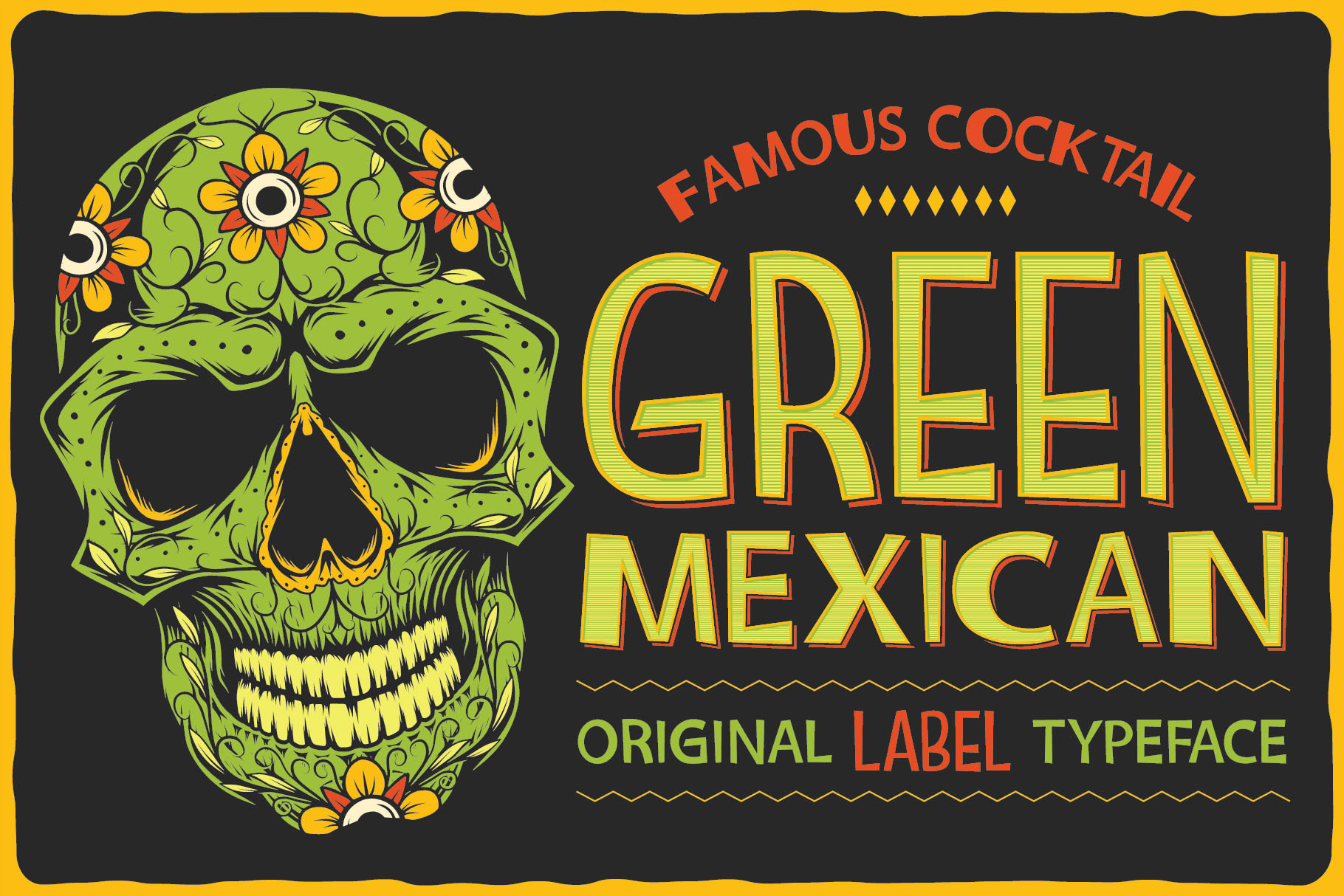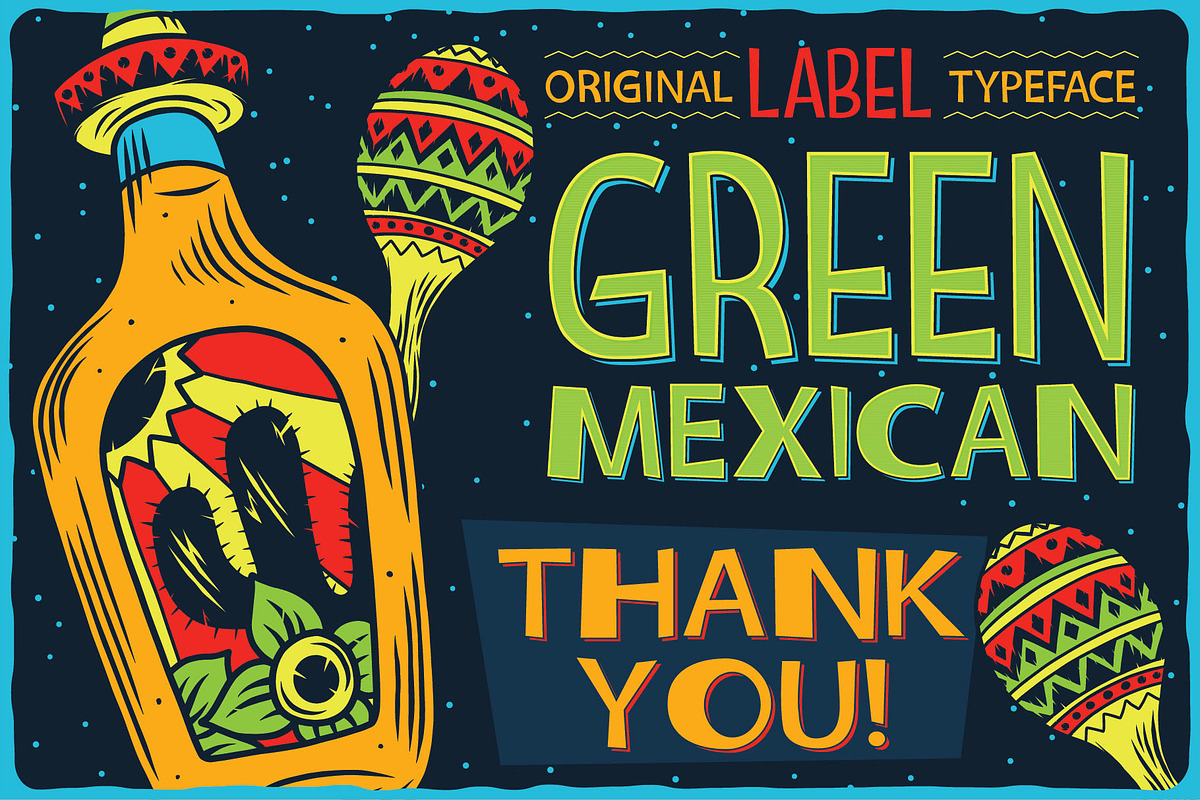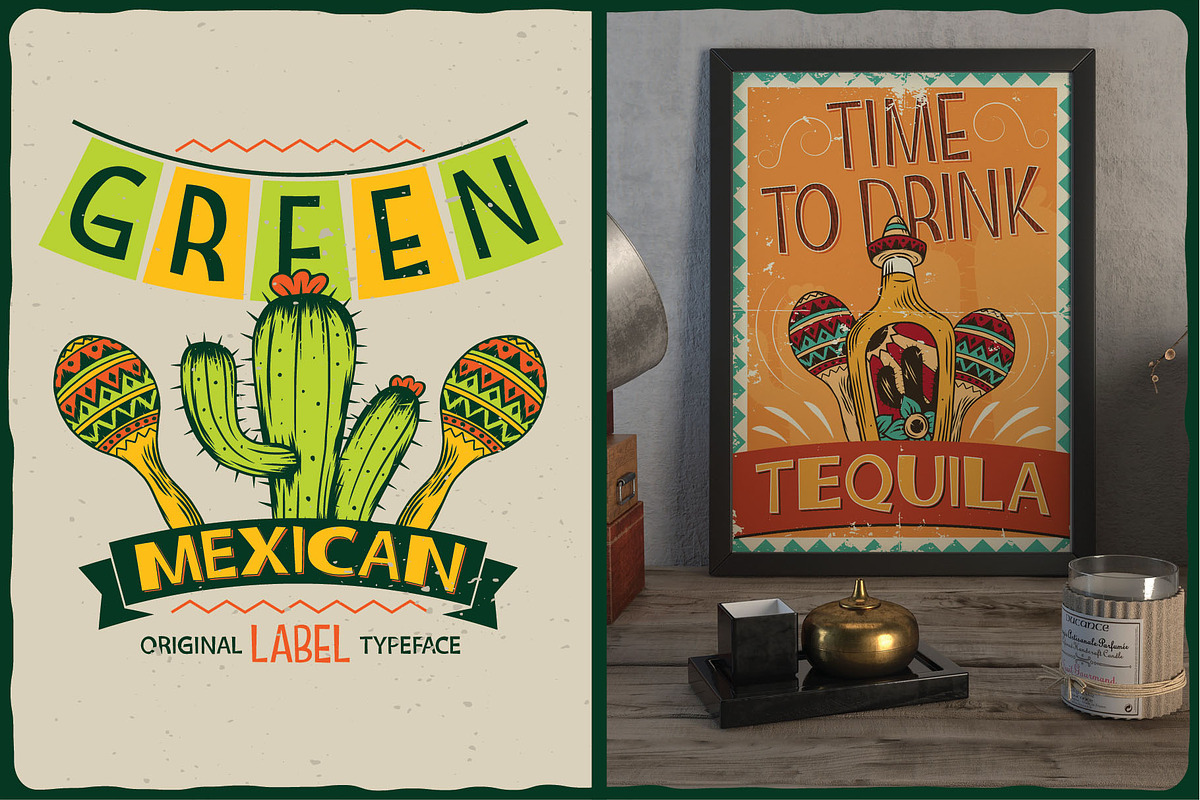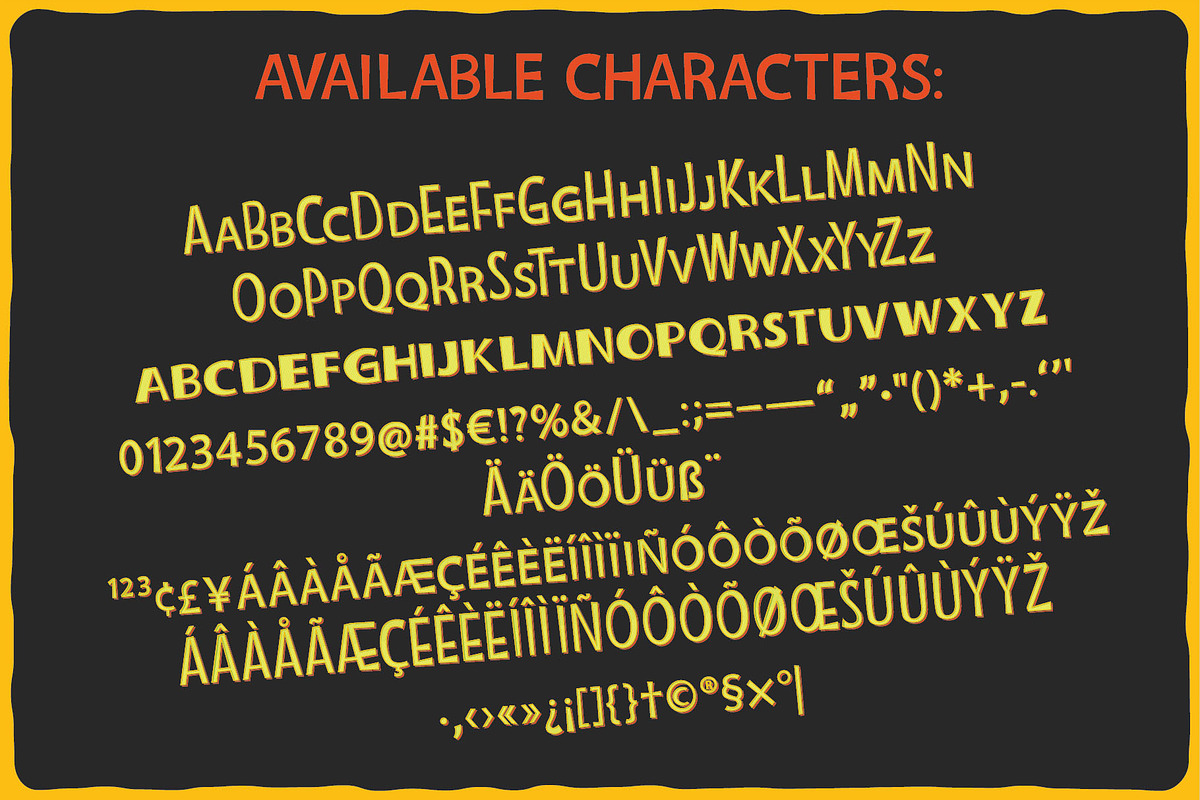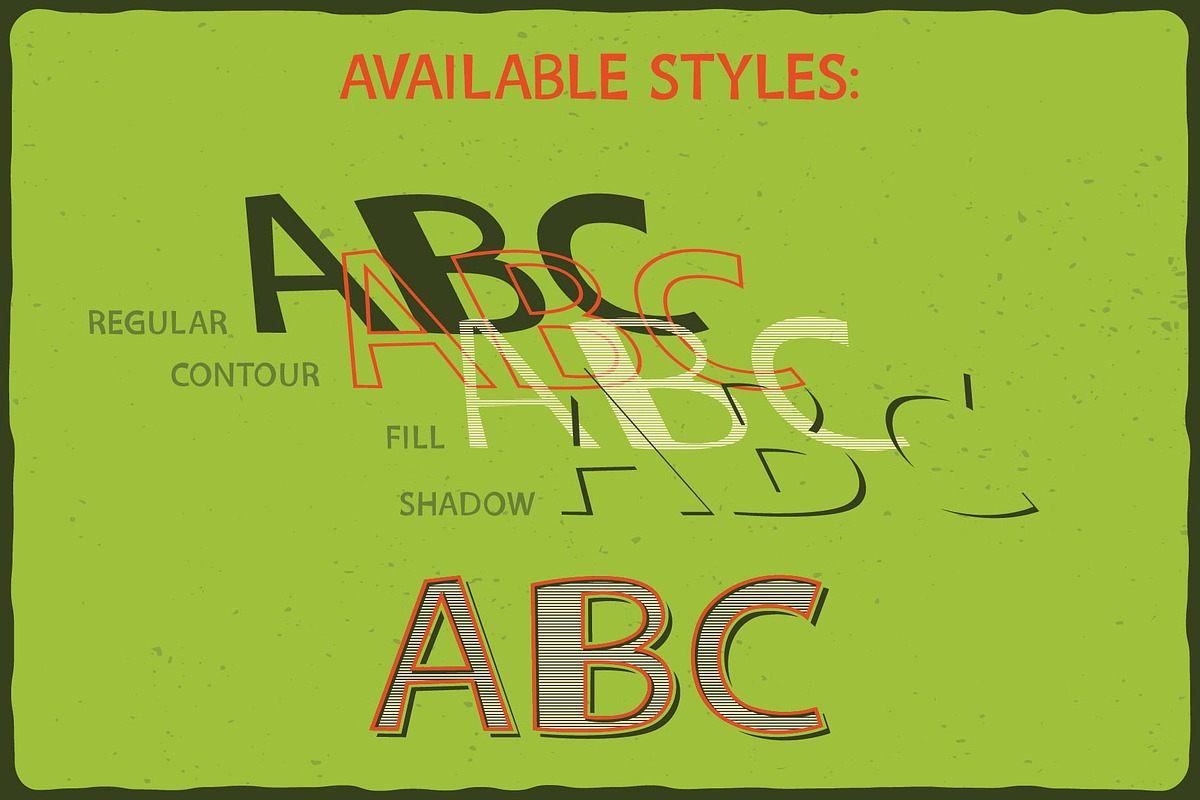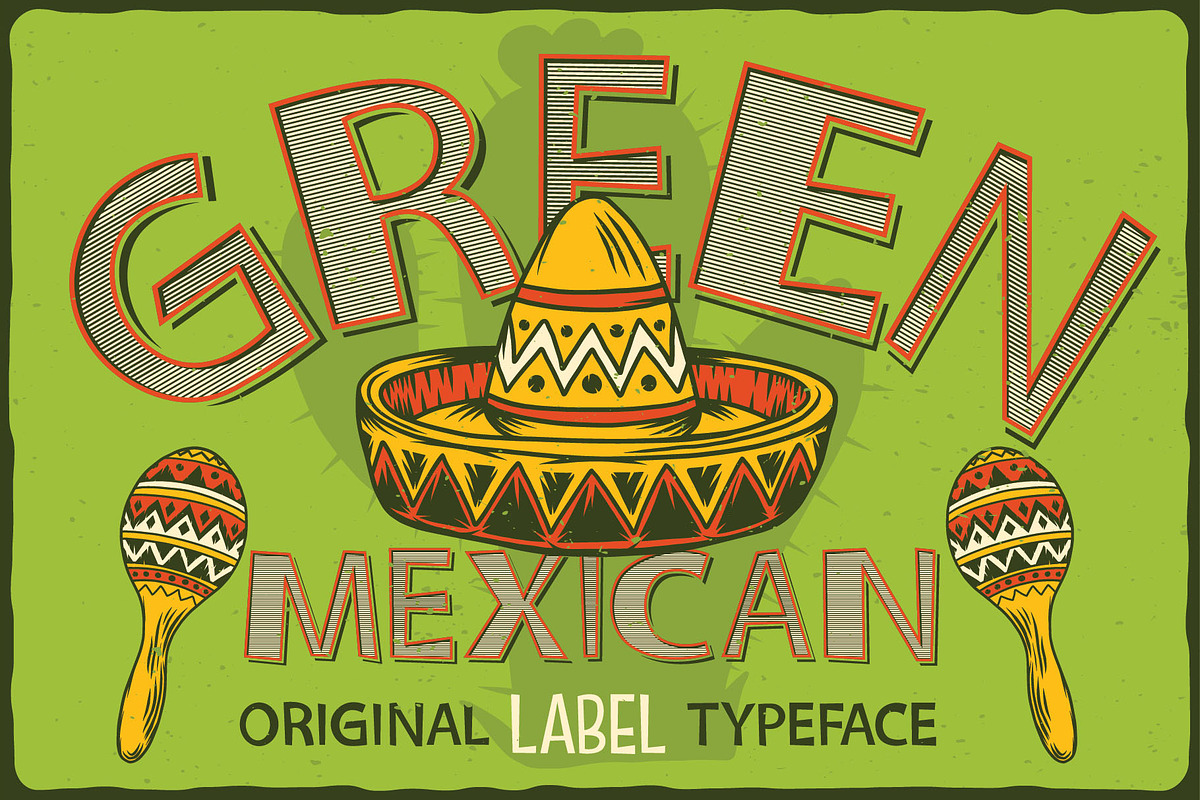
Green Mexican Typeface
Introducing a vintage look label font named "Green Mexican". All available characters you can see at the screenshot. This font have 4 styles. This font will good viewed on any retro design like poster, t-shirt, label, logo etc.
- A lot of additional characters and multilingual support